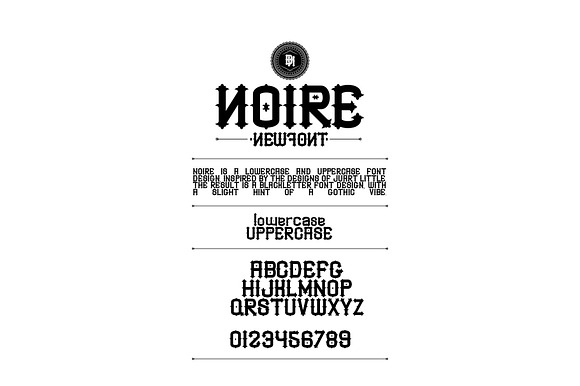
NOIRE font
Blackletter font. Uppercase only.
Why NOIRE font is worth a look
NOIRE font by mockupbank fits naturally into Branding, posters, packaging, typography.